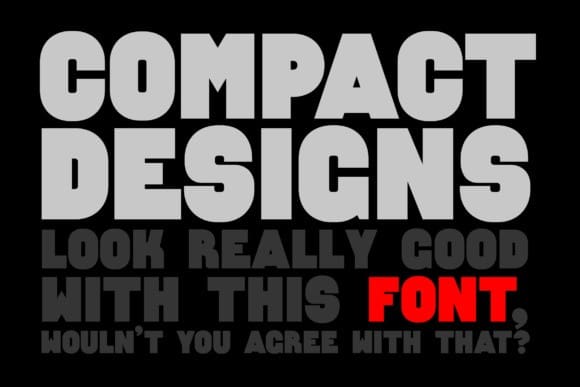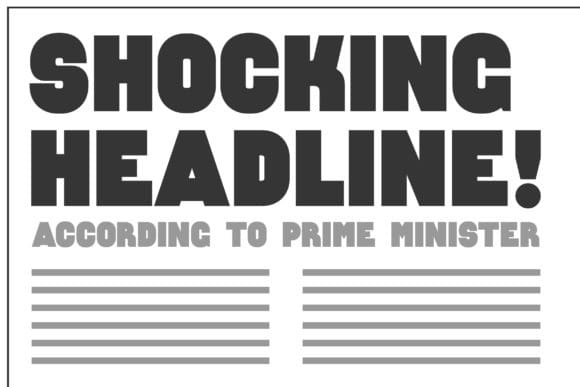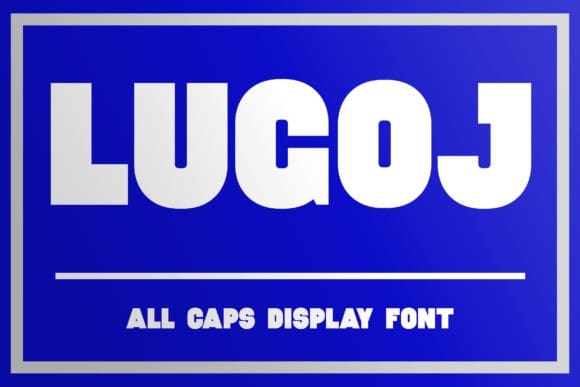
Lugoj Demo Font
Lugoj Font is the name of my hometown. It has its own charisma despite not being very popular. It is very dear to me. The only thing outsiders might associate with it is that Bela Lugosi lived there. He is the guy who played Dracula in the 1931 original ‘Dracula’ movie.
The Lugoj font is a simple and effective display sans-serif. It works best for headlines and posters; it’s caps only. It integrates well with a large variety of styles, fonts, and graphics since it’s kept uncomplicated. Its bold forms can work well standalone too.
It stands out but doesn’t insist upon itself. It’s loud, but it doesn’t yell.
The rounded strokes of ‘sharp’ letters like K and R, along with the added straight segments to letters like G, C, and O, create a harmonious balance among the letterforms.
By making this font, I honed my type design skills more towards minimalism. It has also shown me how much I enjoy crafting heavy/bold typefaces.